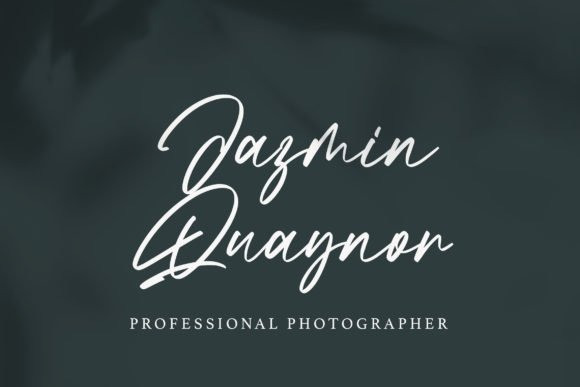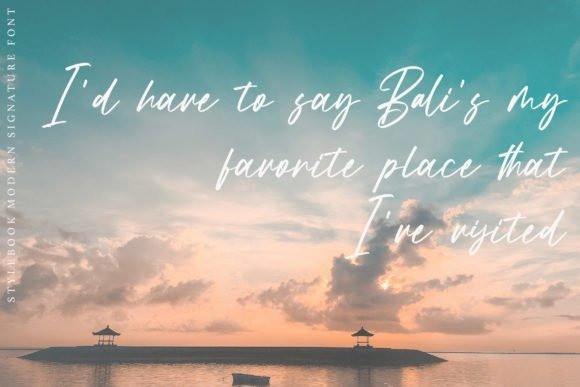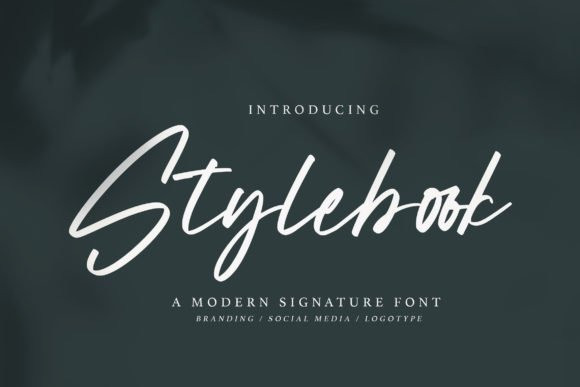
Stylebook Script Font
Stylebook is a delicate, fashionable and uniquely lettered script font. This versatile script font has a wide spectrum of applications ranging from greeting cards to headlines and is guaranteed to add a romantic feel to your next project.